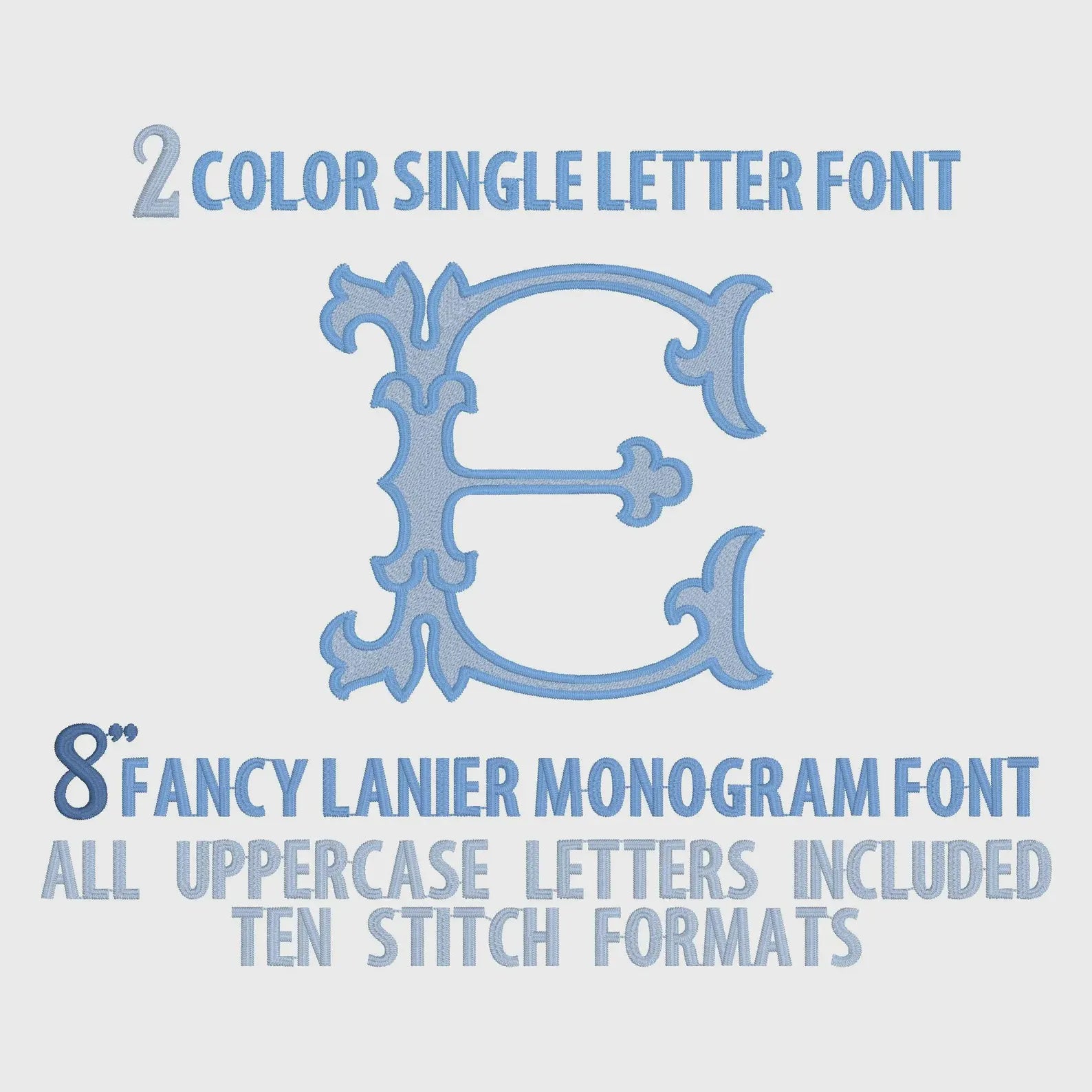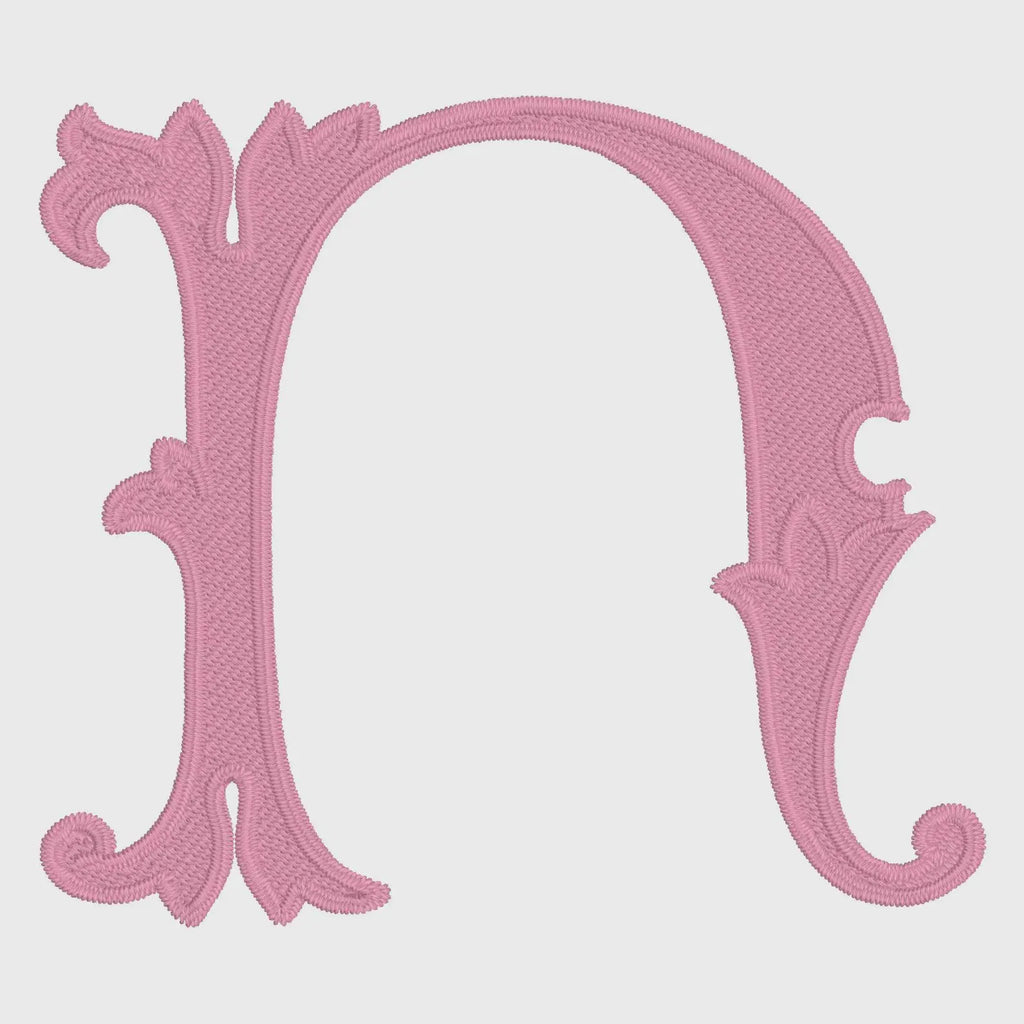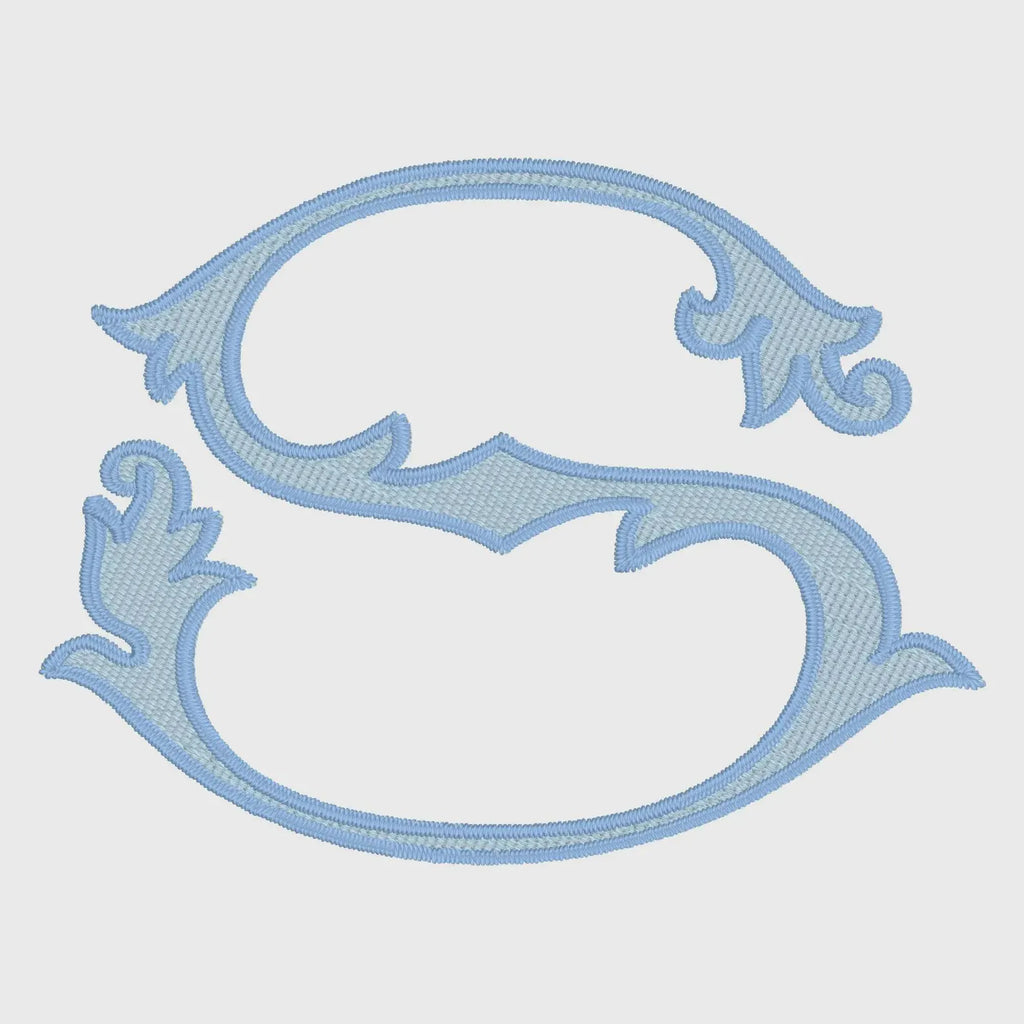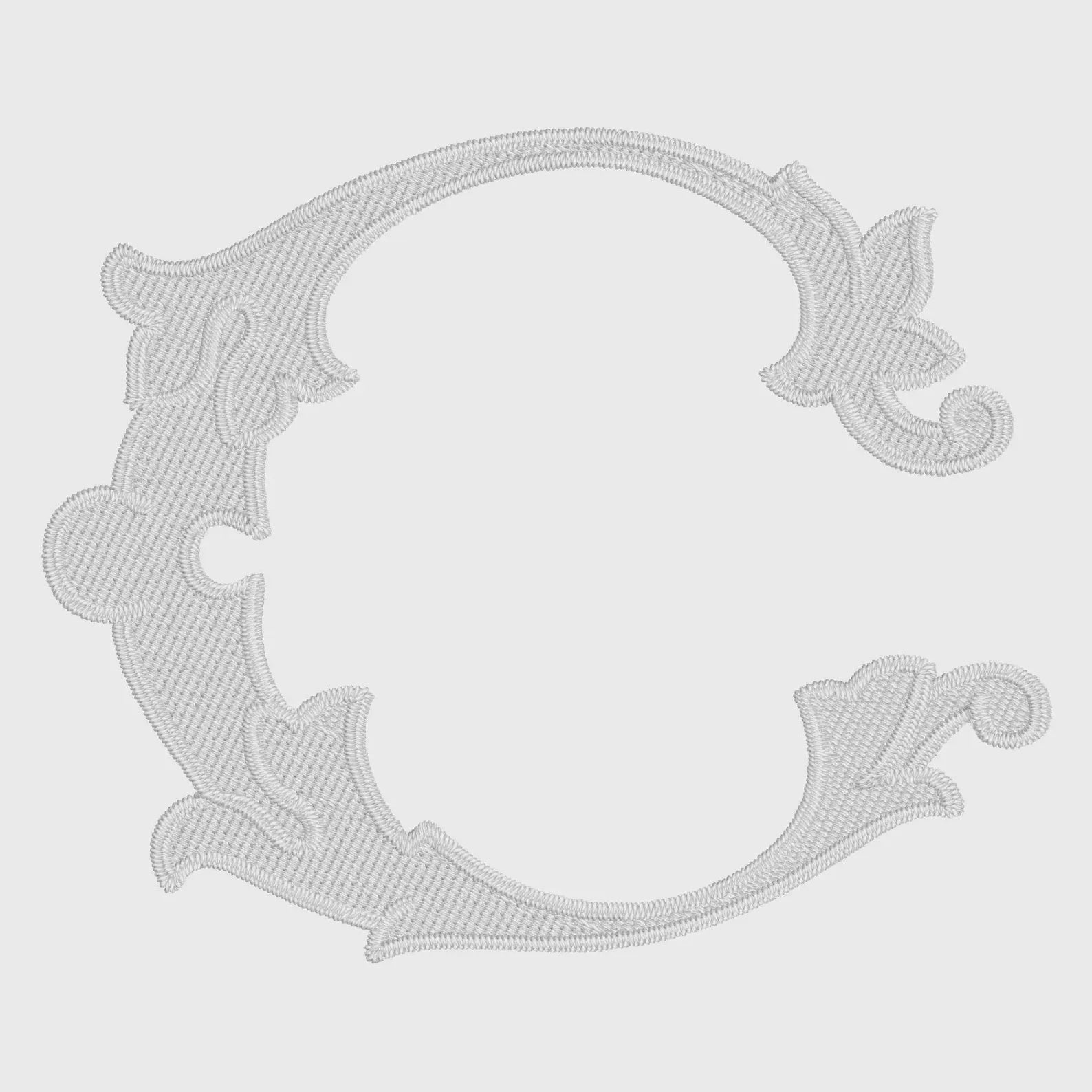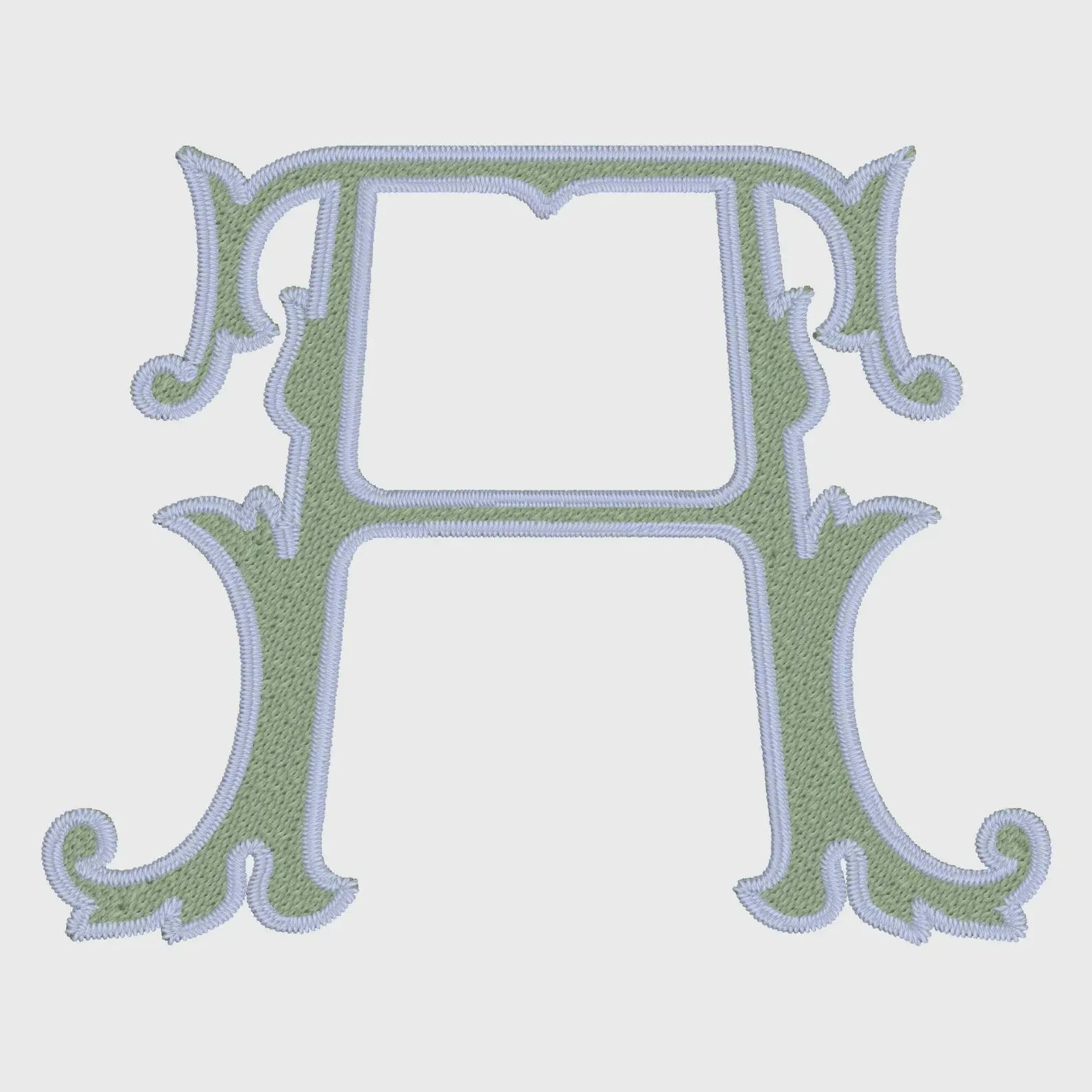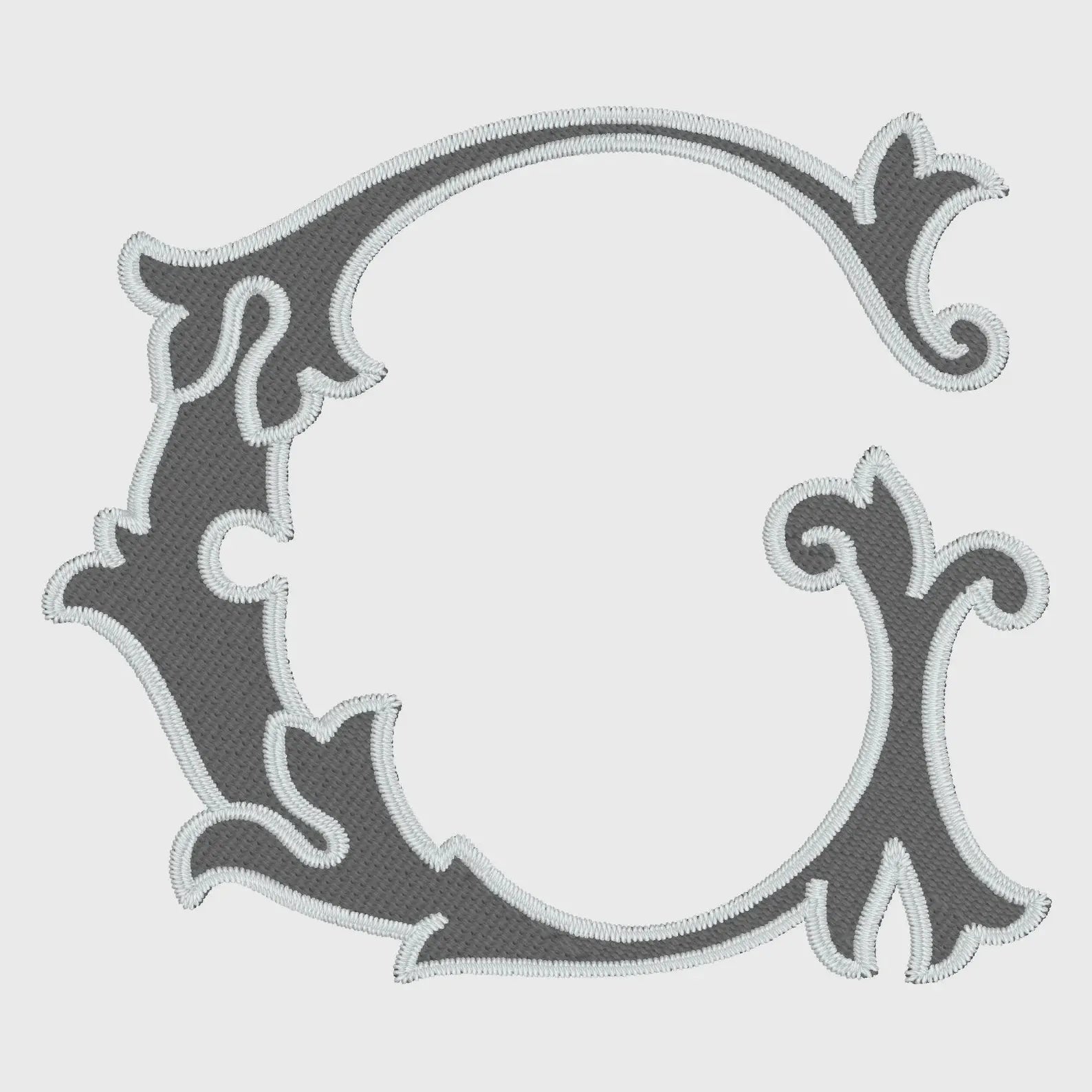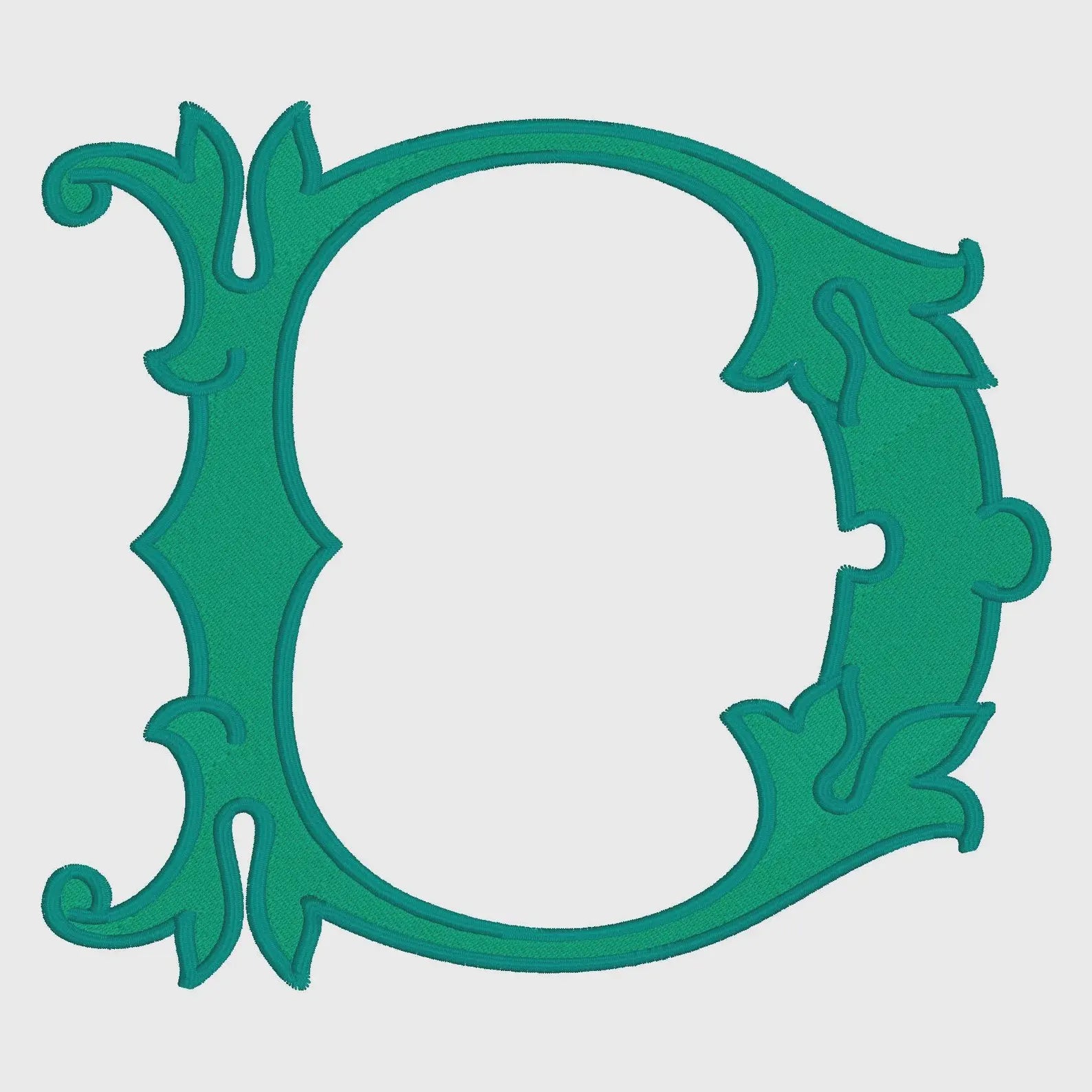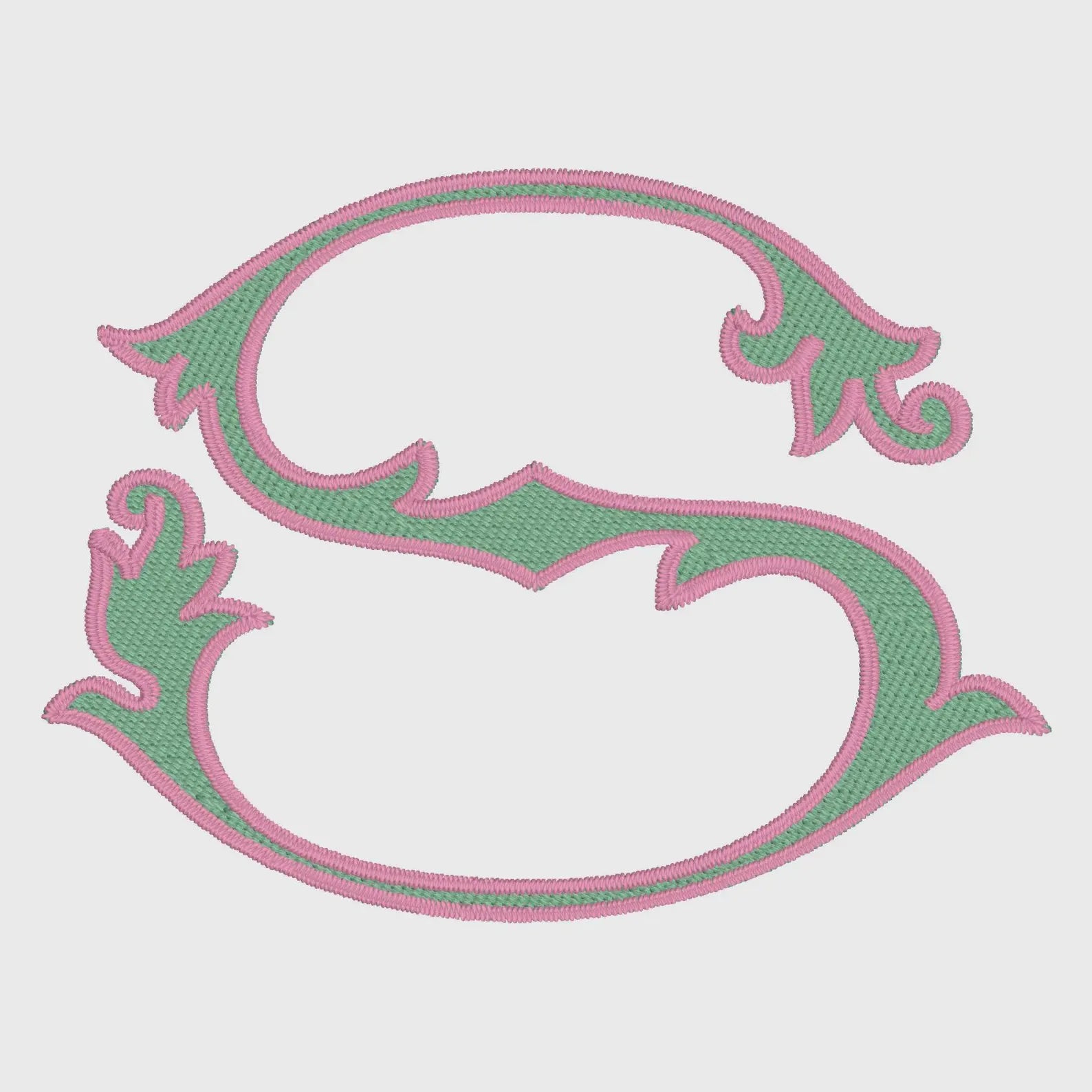
Lanier Font Monogram: 8" Two-Color Embroidery Design (10 Formats)
Large 8" 2 Color Lanier Font: Perfect Single Letter Monogram (10 Stitch Formats)
The Lanier Single Letter Monogram Font is a high end font, not found with most sellers! Its classic style is timeless. I love customizing beautiful unique fonts perfect for creators!
Size for each letter is approx. 8" at largest point.
2 Colors per letter: Satin Outline, Fill Stitch Inside (I actually LOVE the way it looks with tone on tone - either the same color both times or VERY close in shade.)